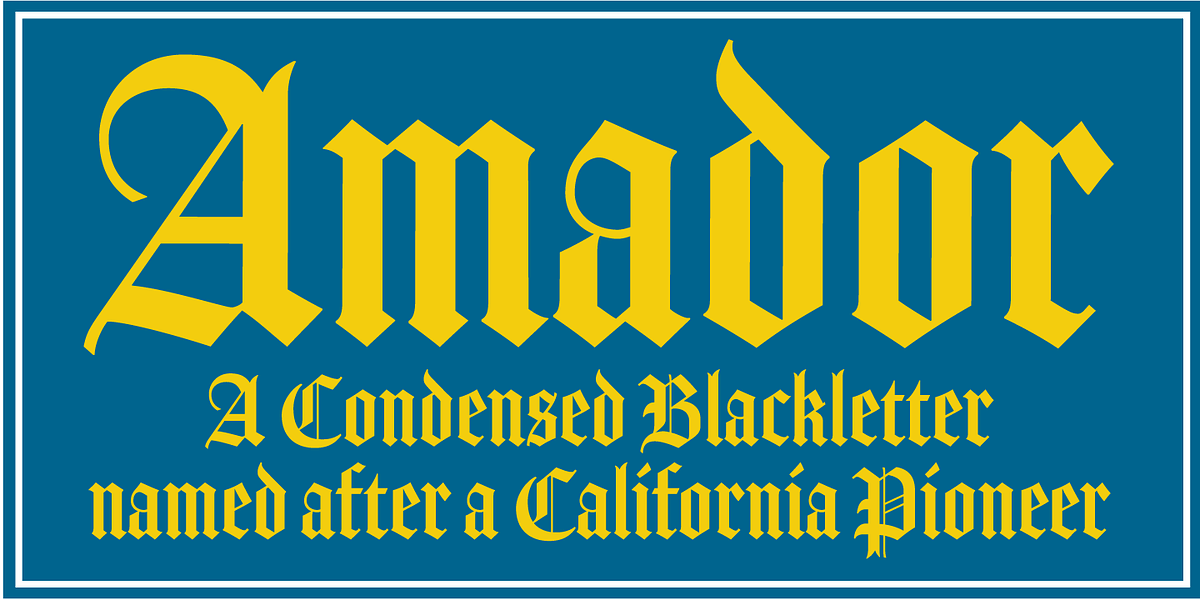
Amador
Amador is a blackletter font designed to evoke the style of medieval manuscripts while incorporating influences from the Arts and Crafts movement. Its design draws inspiration from prominent typographers like Frederic Goudy and Rudolf Koch. Originally released as a Type 1 font in 2004, Amador was updated and re-released as an OpenType font in 2012.